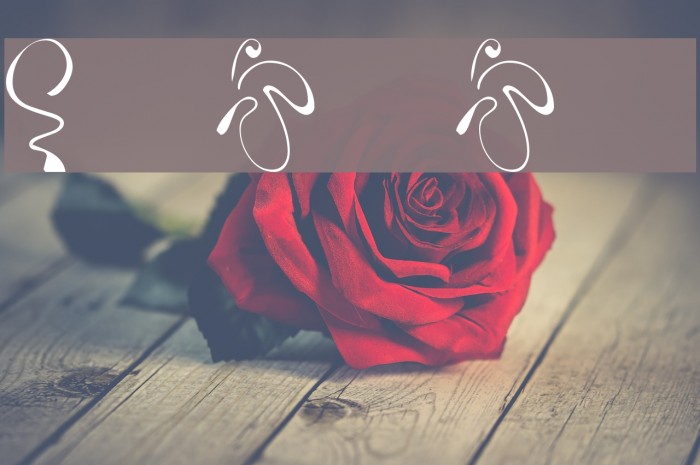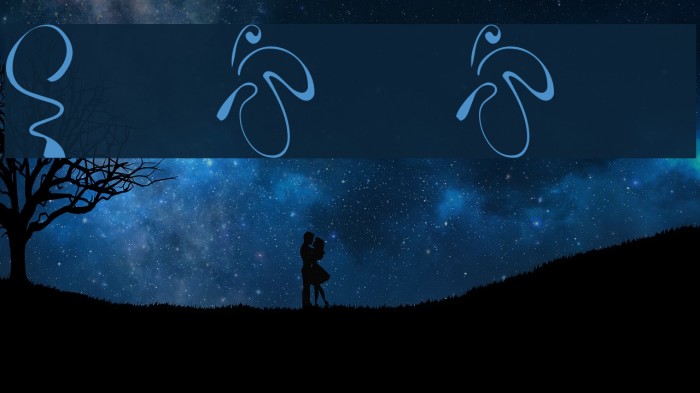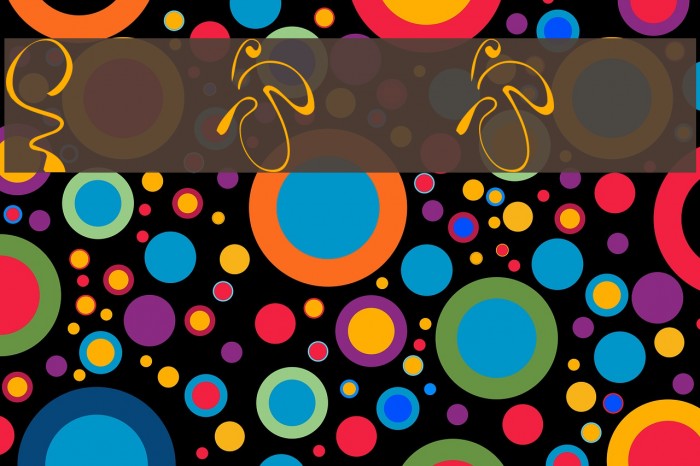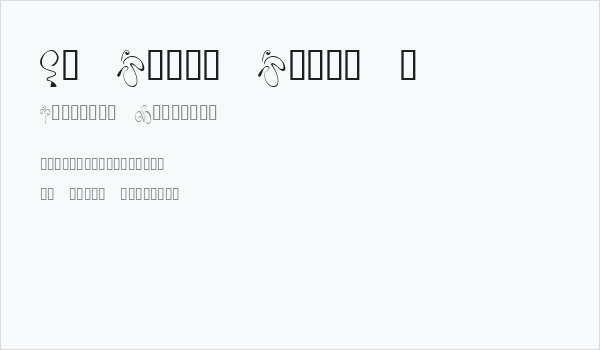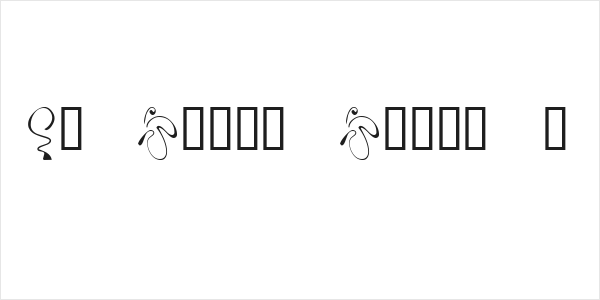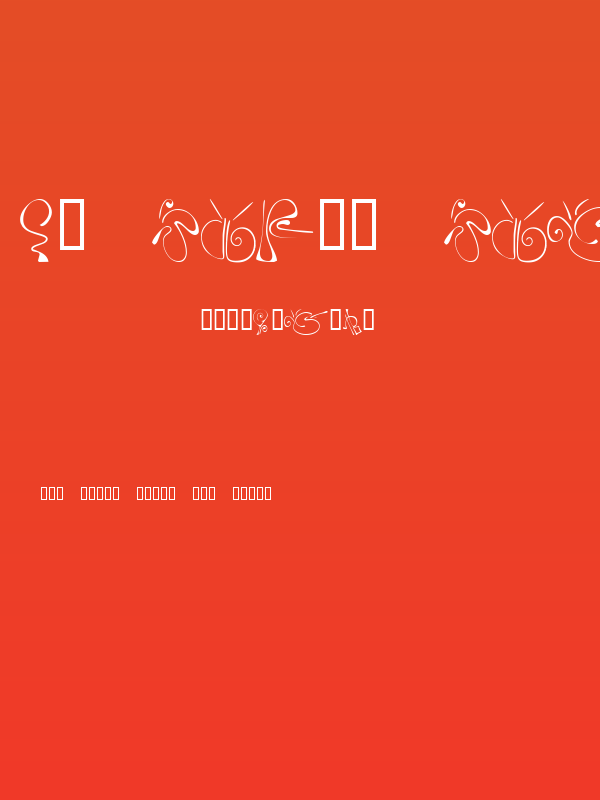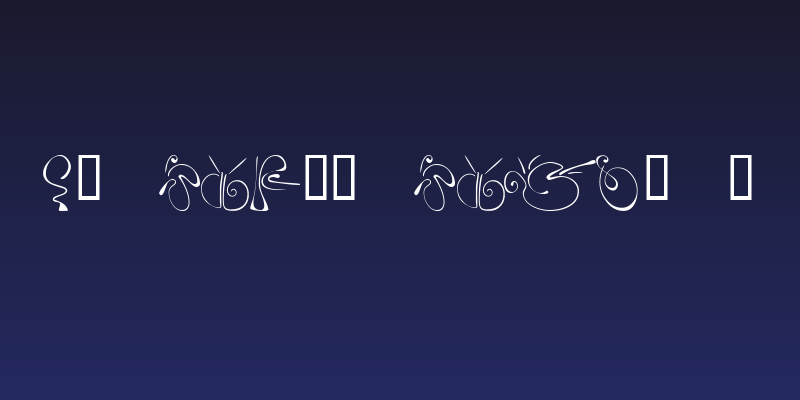
KR Fleur Flair 5 Font
KR Fleur Flair 5 Description
This font features an elaborate and whimsical design, characterized by intricate swirls and curls that give it a playful and artistic flair. Each letter is uniquely crafted with decorative elements that resemble floral motifs, adding a touch of elegance and creativity. The overall appearance is highly stylized, making it suitable for projects that require a distinctive and eye-catching typeface. The characters are not uniform in size or shape, contributing to its dynamic and free-spirited aesthetic.